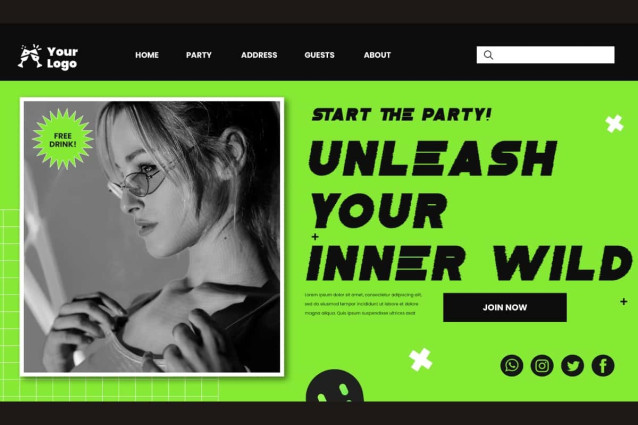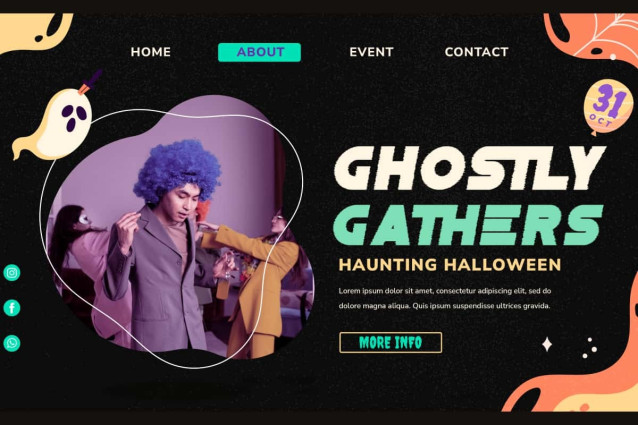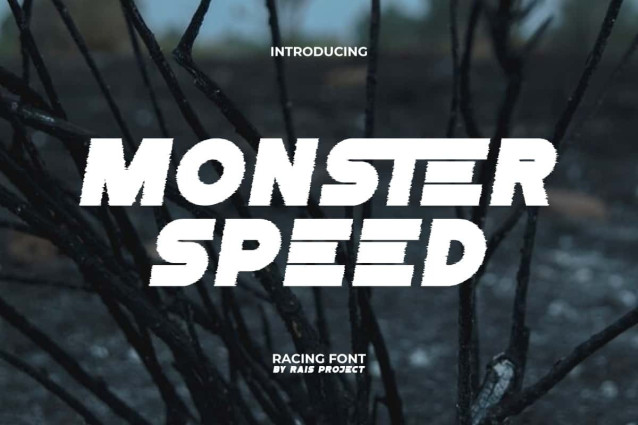
Monster Speed Font
Monster Speed Font is a modern racing font that can convey a strong bold style, by RaisProject. This font has a simple style with a touch of mystery that makes it look a bit creepy. It will be great for poster, label, signage, stationery, custom design, product packaging, quotes, brand image, advertisement, invitation, marketing material, website page, and more!
Monster Speed Font includes a full set of ALL CAPS for Uppercase and Lowercase Letters, Numerals, and large range of Punctuation. This modern font will be suitable for various industries, such as sports, automotive, fashion, game, barber shop, cafe, event or festival, photography, printing, publishing, etc.